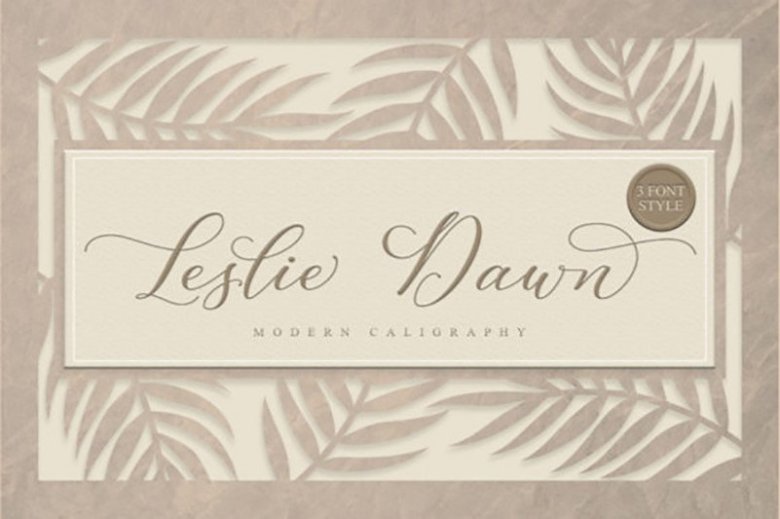
Leslie Dawn Calligraphy Font
A lovely calligraphy script font with a natural & stylish flow by Graphix Line Studio. Perfect for making elegant stylish statements – or adding a touch of class to your designs. Introducing Leslie Dawn Font. It’s the perfect font for a huge variety of crafting projects. Get inspired by its stunning alternates characters! It’s perfect for branding projects, logo, wedding designs, social media posts, advertisements, product packaging, product designs, label, photography, watermark, invitation, stationery and any projects.